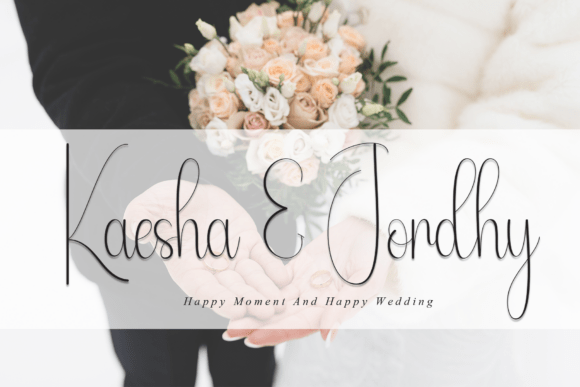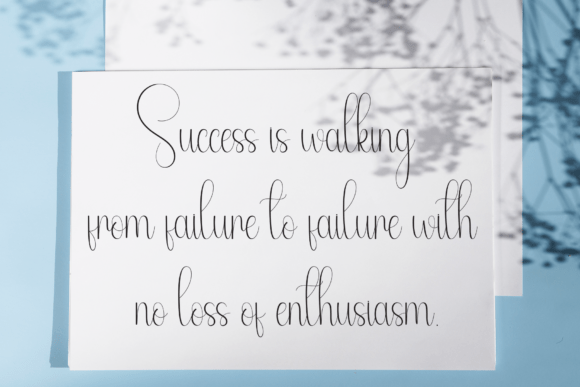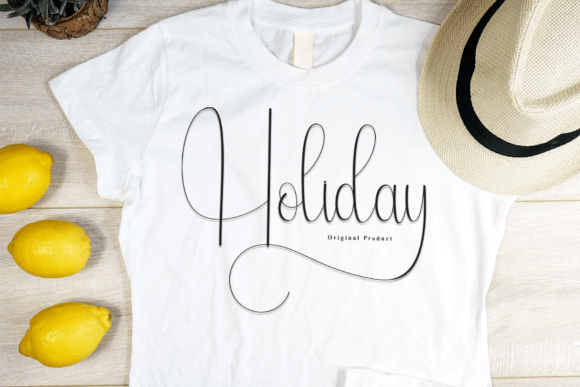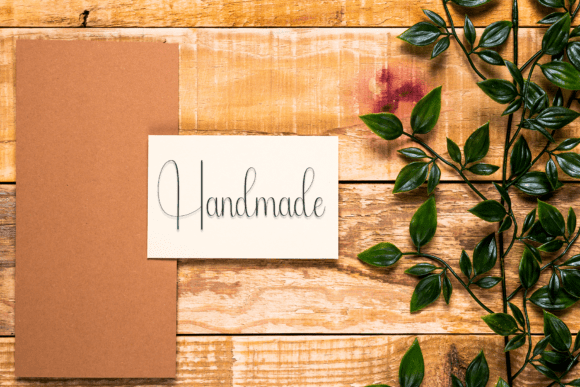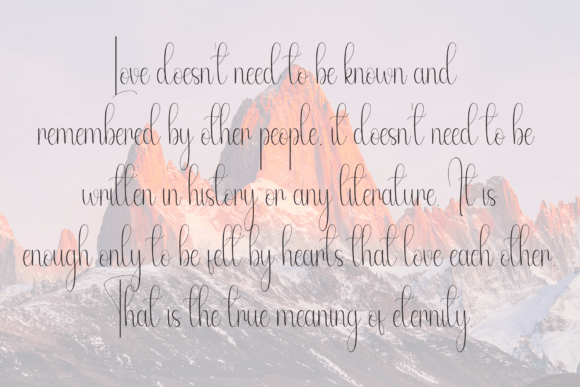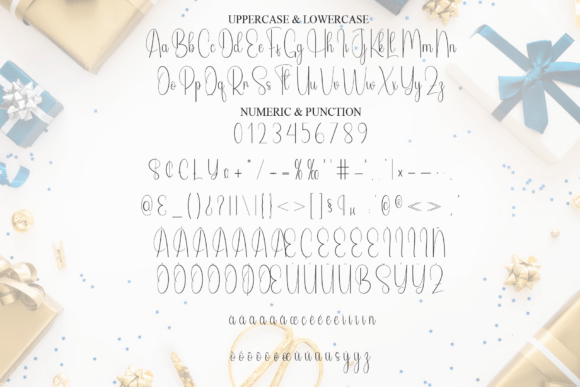
The Birth of Elegance: A Deep Dive into the Birthday Font
I’ll never forget the time I was working on a wedding invitation project, and my client asked for a font that exuded elegance and sophistication. I scoured the internet, tried out countless fonts, but nothing seemed quite right. That was until I stumbled upon the Birthday font. Its smooth, flowing strokes and natural feel instantly won me over. In this article, I’ll share my experience with the Birthday font, its features, and how to make the most of it in your designs.
Here’s what I love about the Birthday font:
• ✨ Elegant and fluid strokes: The Birthday font has a beautiful, handwritten quality that adds a touch of sophistication to any design.
• ✅ Versatile: It’s perfect for a wide range of projects, from branding and invitations to creative hobby projects.
• 💫 Charming and modern: The font strikes a great balance between charm and modernity, making it perfect for designs that need a personal touch.
And a few quirks to keep in mind:
• 🤔 Limited use in body text: While the Birthday font is stunning in headings and titles, it may not be the best choice for body text due to its elegant, cursive nature.
• ⚠️ Requires attention to spacing: To get the most out of the font, you may need to adjust the spacing between letters to ensure it looks its best.
The Story Behind the Birthday Font
The Birthday font was designed with elegance and fluidity in mind. Its creator aimed to craft a font that would add a personal, artistic touch to any design. While the font’s exact backstory is unclear, it’s evident that the designer was inspired by the beauty of handwritten scripts and the need for modern, sophisticated typography.
What makes the Birthday font unique? The Birthday font’s smooth, flowing strokes and elegant feel set it apart from other fonts.
Is the Birthday font suitable for body text? While the Birthday font is beautiful, it may not be the best choice for body text due to its elegant, cursive nature.